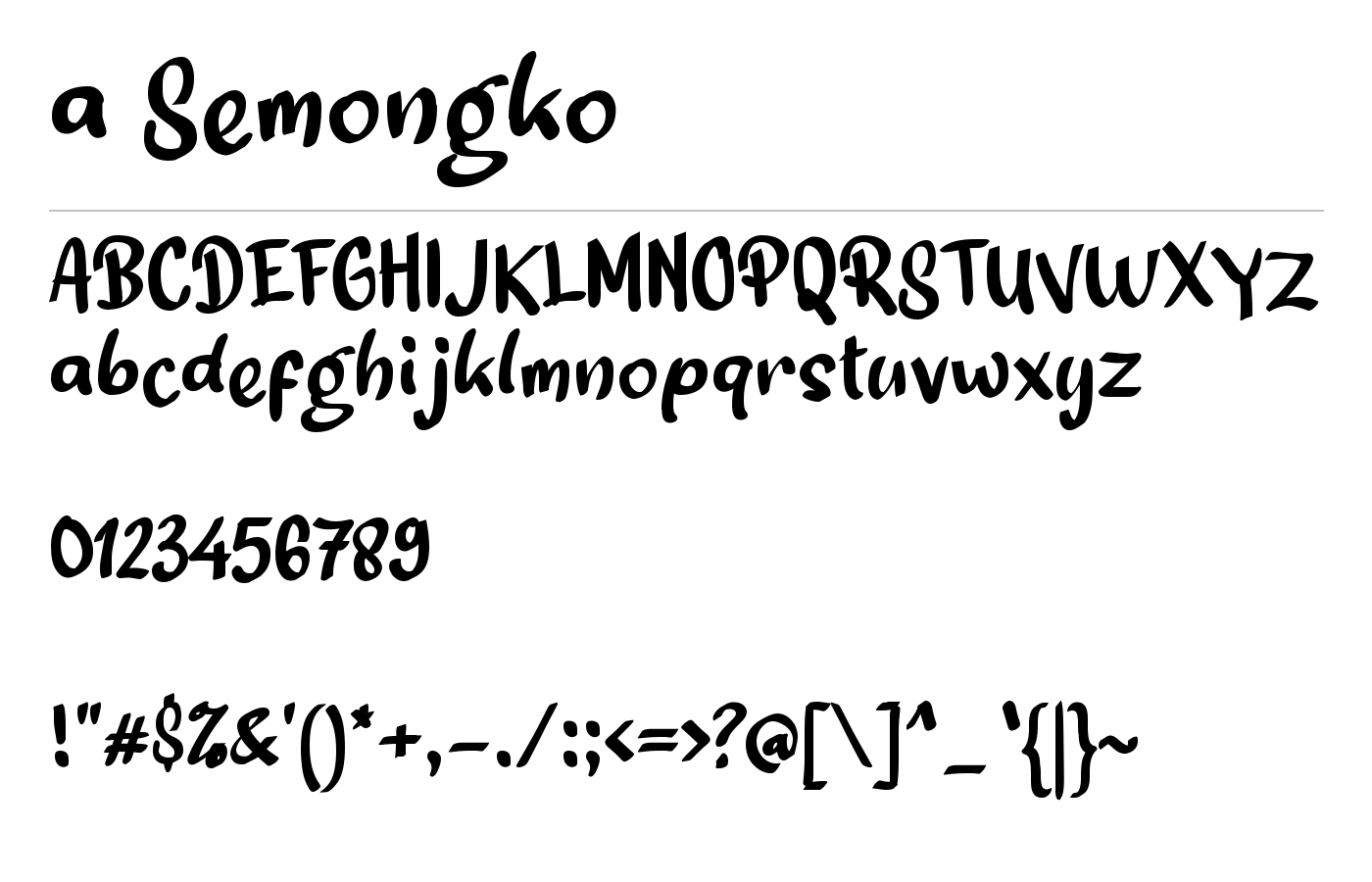
Semongko is a lively and informal handwritten font that features a bold and playful style with rounded, slightly irregular letterforms. Its upright characters exhibit a casual charm with unique, slightly quirky shapes that make it ideal for creative and friendly designs. This font works well for logos, posters, and packaging that aim to convey approachability and fun, especially where a personal, handcrafted feel is desired.
a Semongko Font
About a Semongko Font